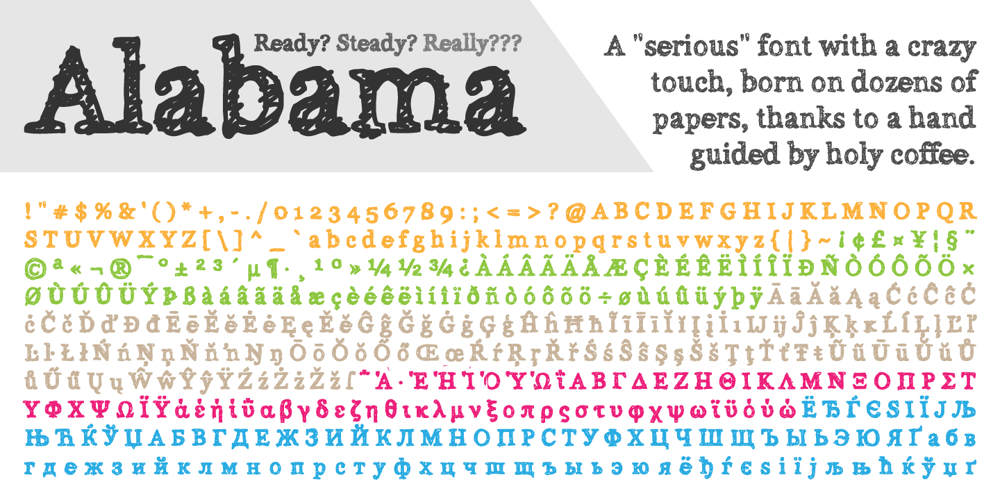
Alabama Font Family was designed by Giuseppe Cunsolo and published by peqpe. Alabama contains 1 styles and family package options. A “serious”(serif) font with a crazy touch. The idea was born on dozens of papers, thanks to a not-steady-at-all hand guided by coffee.